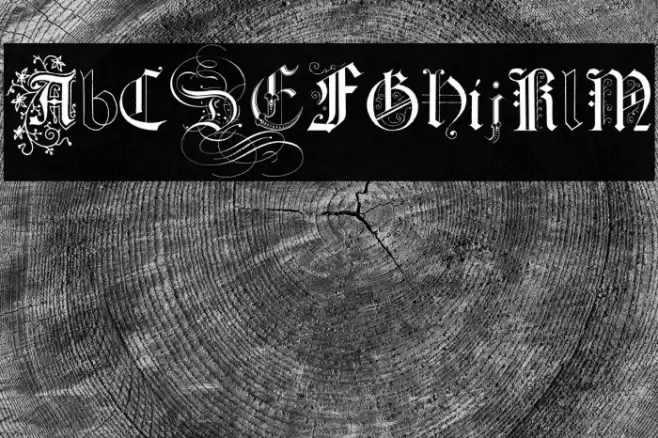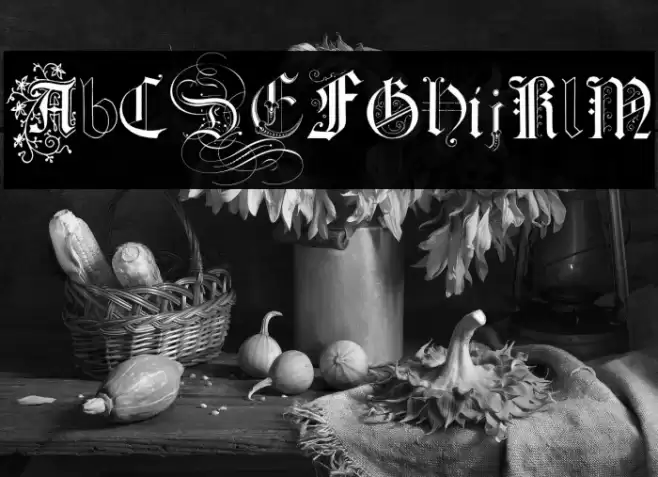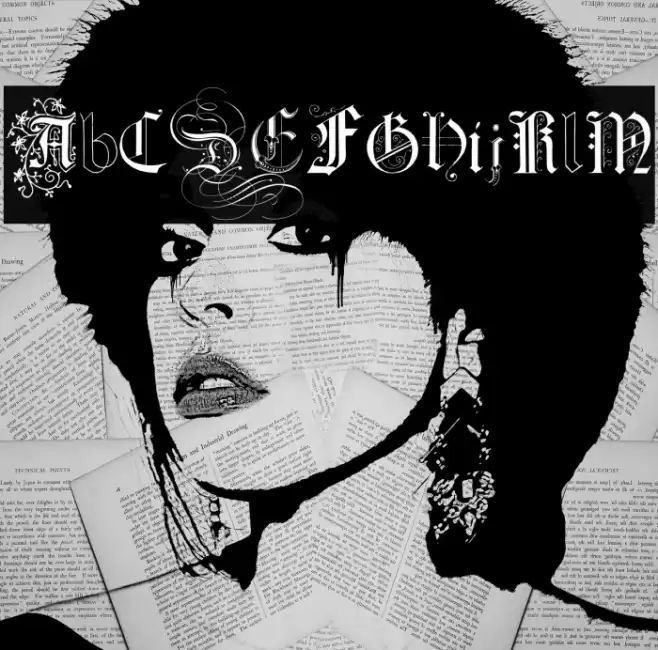
Kidnapped at German Lands Four Regular Font
Kidnapped at German Lands Four Regular Description
This font is a highly decorative and ornate typeface, reminiscent of traditional Blackletter styles. It features intricate detailing and embellishments, particularly in the uppercase letters, which include flourishes and elaborate serifs. The lowercase letters maintain the ornate style but with slightly less complexity, making them more readable. The numbers are bold and maintain the gothic aesthetic, with sharp angles and thick strokes. The special characters are equally decorative, fitting seamlessly with the overall style. This font is ideal for projects that require a historical or medieval touch, offering a dramatic and artistic flair.
An ornate, decorative Blackletter-style font with intricate detailing from Uncategorized fonts.
- Font: Kidnapped at German Lands Four Regular
- Proposed Projects: Ideal for historical-themed designs, book covers, posters, and branding that requires a medieval or gothic aesthetic.